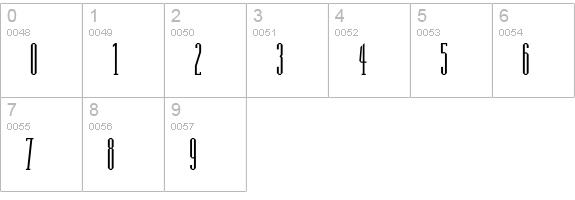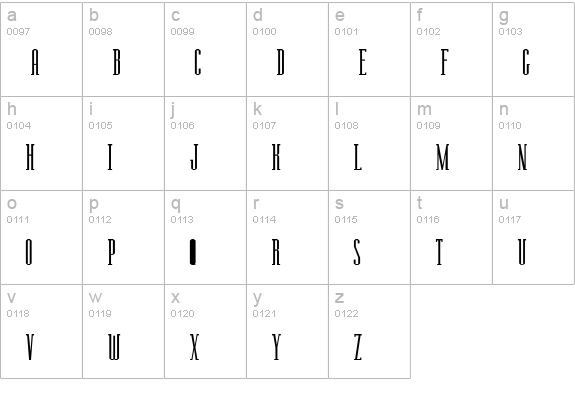
Manzanita Font Details
Manzanita is a stunningly elegant font that exudes sophistication and style. Its clean lines and delicate curves make it the perfect choice for projects that require a touch of refinement. Whether you're designing wedding invitations, creating a logo for a high-end brand, or adding a touch of class to your personal blog, Manzanita is sure to elevate your designs to new heights. This beautiful font features a unique combination of modern and classic elements, making it versatile and adaptable to various design styles. Its graceful strokes and precise detailing make every letter a work of art, ensuring that your text stands out and captures attention. Manzanita's timeless appeal is further enhanced by its smooth and balanced letterforms, creating a harmonious flow that is pleasing to the eye. But what sets Manzanita apart is not just its exceptional beauty, but also its accessibility. This stunning font is available for free download at FontsMarket.com, making it easily accessible to designers and creatives worldwide. With just a few clicks, you can add this exquisite font to your collection and start using it in your projects immediately. So why wait? Embrace the elegance and versatility of Manzanita font and take your designs to the next level. Download it for free at FontsMarket.com and let your creativity soar.